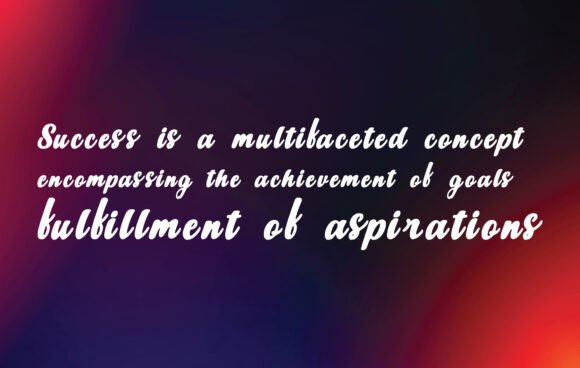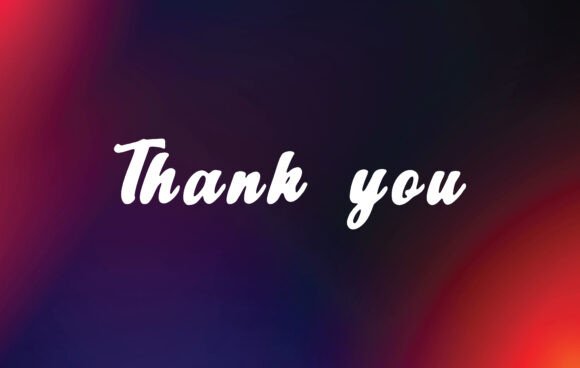
The Daffodil Font: A Lovely Handwritten Font to Elevate Your Designs
I’ll never forget the time I was working on a branding project for a client who wanted a logo that screamed “spring” and “new beginnings.” I had been searching for the perfect font for hours, trying out different combinations, but nothing seemed quite right. That’s when I stumbled upon the Daffodil font. Its beautiful, handwritten curves and cheerful vibe instantly caught my attention, and I knew I had found the one. In this article, I’ll share my experience with the Daffodil font, its features, and how to make the most of it in your designs.
An Honest Review of Daffodil Font
What I Love About Daffodil Font
- ✨ Beautiful, handwritten curves that add a touch of elegance to any design
- ✅ Highly versatile and suitable for a wide range of projects, from logos and branding to quotes and social media graphics
- 💫 Unique character set that includes OpenType features, glyphs, and stylistic alternates
- 🌸 Perfect for designs that require a spring-inspired or feminine touch
While Daffodil font is an excellent choice for many projects, there are a few things to keep in mind:
- ⚠️ Some users have reported issues with kerning, particularly when using larger font sizes
- 🤔 Limited availability of language support, which may be a concern for designs that require non-English text
The Story Behind Daffodil Font
The Daffodil font was designed by a talented type designer who wanted to create a font that captured the beauty and elegance of handwritten writing. Inspired by the cheerful, sunny appearance of daffodils, the designer created a font that is both lovely and legible. Whether you’re working on a branding project or just want to add a touch of spring to your designs, the Daffodil font is an excellent choice.
| Font Name | Daffodil Font |
| Author | moonlight craft |
Q: What is the Daffodil font best suited for?
A: The Daffodil font is highly versatile and suitable for a wide range of projects, including logos, branding, quotes, and social media graphics.
Q: Is the Daffodil font available in different languages?
A: The Daffodil font may have limited language support, so it’s best to check with the font designer or a reliable font source to confirm availability.